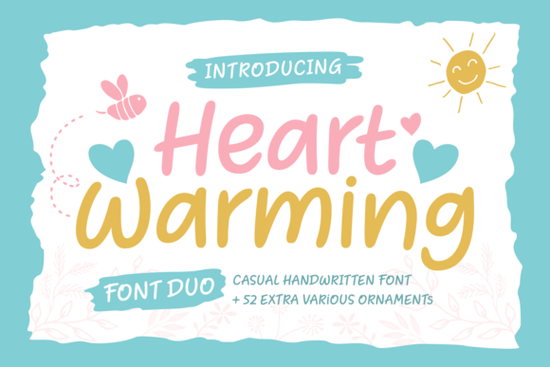
If you've been searching for a friendly, easy-to-read typeface that still feels warm and personal, the Heart Warming Font is worth a closer look. It's a soft, rounded font duo that includes a regular version plus a set of 50 bonus ornaments. Whether you're designing wedding invitations, t-shirt graphics, or social media posts, this font keeps things legible while adding a cozy, approachable feel.
What Comes in the Heart Warming Font Package?
This isn't just a single font file. When you download the Heart Warming Font, you get two versions:
- Regular font clean, rounded letterforms that work well at both large and small sizes.
- Ornament version the same base font, but with 50 bonus ornaments built in. These are decorative elements you can type directly into your design without switching tools.
The ornament set is a nice bonus for crafters who want to add small flourishes, hearts, or decorative touches without manually placing graphics. You type a character, and the ornament appears in place. That saves real time, especially when you're working on batch projects.
Why Does Legibility Matter in a Script Font?
A lot of script fonts and handwritten fonts sacrifice readability for style. That's fine for a headline on a poster, but it falls apart when you try to use it on a product label, a small business card, or a print-on-demand design where people need to actually read the words.
The Heart Warming Font was designed to solve that problem. Its soft, rounded shapes keep each letter distinct, so words stay clear even at smaller sizes. For anyone selling on Etsy or running a small brand, that readability can directly affect how professional your products look.
If you're comparing options, fonts like Roselya Script take a more traditional calligraphy approach, while Wonder Day Font leans into a playful, bouncy style. The Heart Warming Font sits somewhere in between friendly but not childish, decorative but not cluttered.
What Projects Work Well With This Font?
Because it's so versatile, you can use this font across many types of projects:
- Wedding stationery invitations, save-the-dates, and thank-you cards
- Print-on-demand t-shirts, mugs, tote bags, and stickers
- Social media graphics Instagram quotes, Pinterest pins, and story templates
- Branding logos, packaging, and business cards for small businesses
- Crafting projects Cricut and Silhouette designs, scrapbooking, and sublimation
- Children's products birthday invitations, nursery wall art, and classroom materials
The rounded letterforms give designs a gentle, approachable quality that works especially well for products aimed at families, weddings, or wellness brands.
How Does It Compare to Other Rounded or Script Fonts?
Creative Fabrica has a large collection of script and handwritten fonts, so it helps to know how Heart Warming fits in. Here are a few comparisons based on style and use case:
- Barbie Font bold, playful, and very specific in its aesthetic. Great for themed designs but less flexible for general use.
- Kindred Font a warmer, more organic script that works well for earthy or boho-style projects.
- Letterland Font a clean option with a slightly more structured feel, useful for educational or kids' content.
What sets Heart Warming apart is the combination of softness and clarity, plus the included ornament set. Most fonts in this price range don't give you 50 extra decorative characters bundled in.
Is This Font a Good Fit for Print-on-Demand Sellers?
Short answer: yes, especially if your designs lean toward warm, friendly, or heartfelt themes. POD sellers need fonts that look good at various sizes and on different products. A design that works on a mug also needs to work on a hoodie or a phone case.
The Heart Warming Font handles that range well because its shapes are simple enough to scale without losing quality. The ornament characters also give you easy ways to differentiate products add a decorative heart to one version, a flourish to another without needing separate graphic files.
- ✅ Pair it wisely use a simple sans-serif for body text and let Heart Warming handle headlines and accents